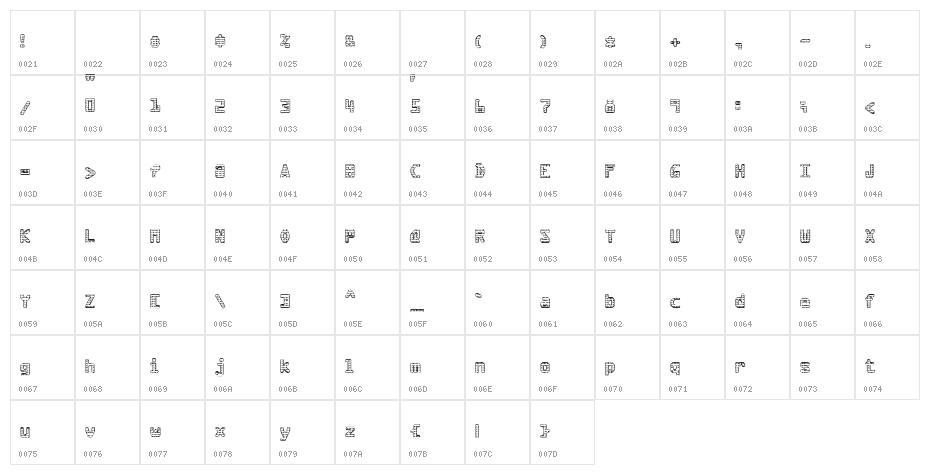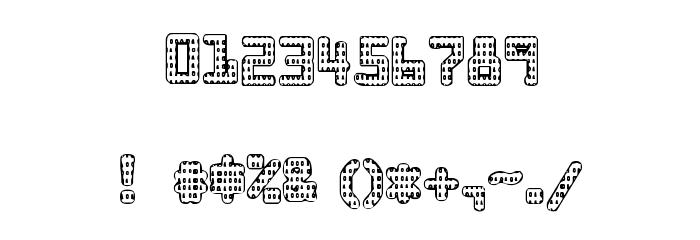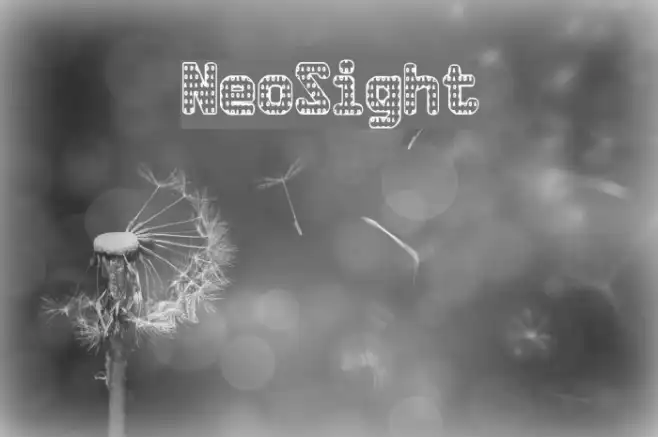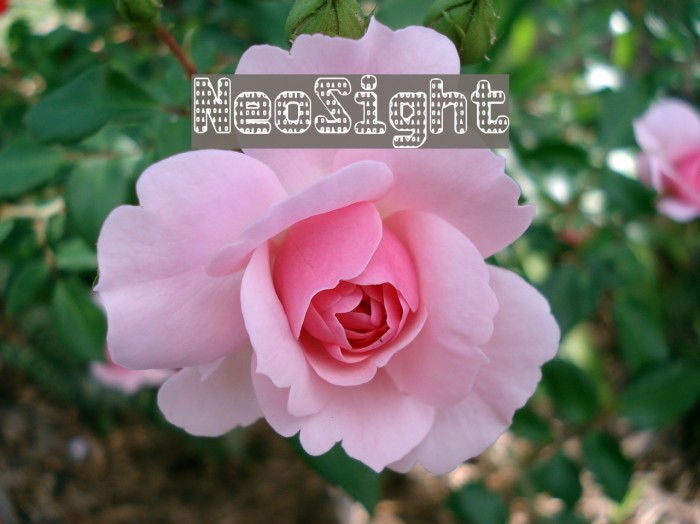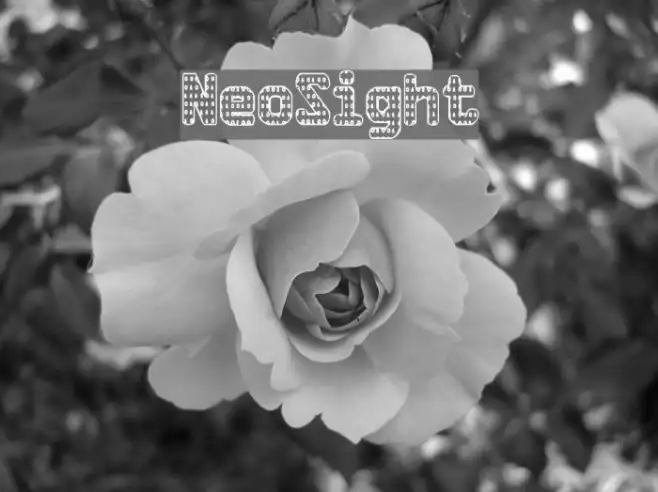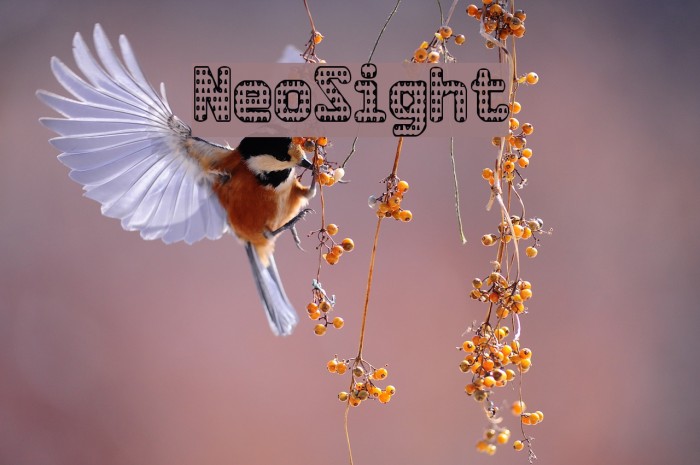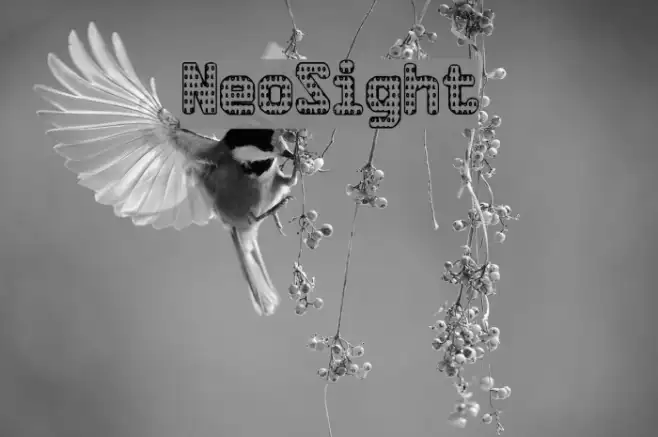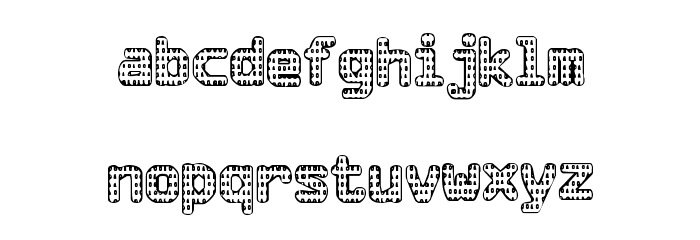
NeoSight Font
NeoSight Description
This font features a playful and decorative style with a unique pattern inside each character. The letters are bold and outlined, giving them a three-dimensional appearance. The interior pattern consists of small, evenly spaced dots, adding texture and visual interest. The characters maintain a consistent width and height, creating a uniform look across both uppercase and lowercase letters. The numbers and special characters follow the same design principles, ensuring cohesion throughout the font set. This font's distinct style makes it suitable for creative and eye-catching designs.
| Proposed Projects | Ideal for children's books, playful branding, posters, and creative invitations. |